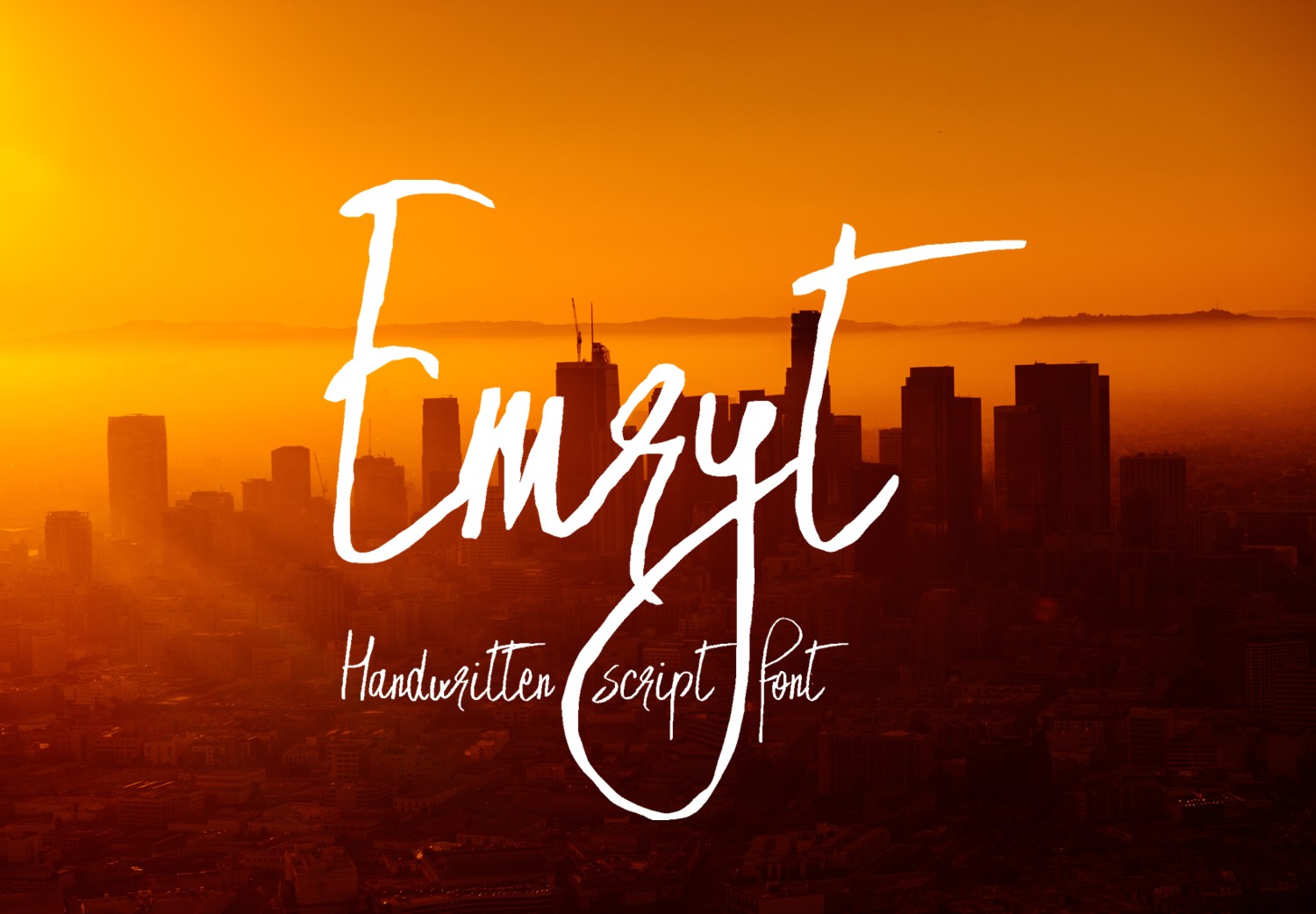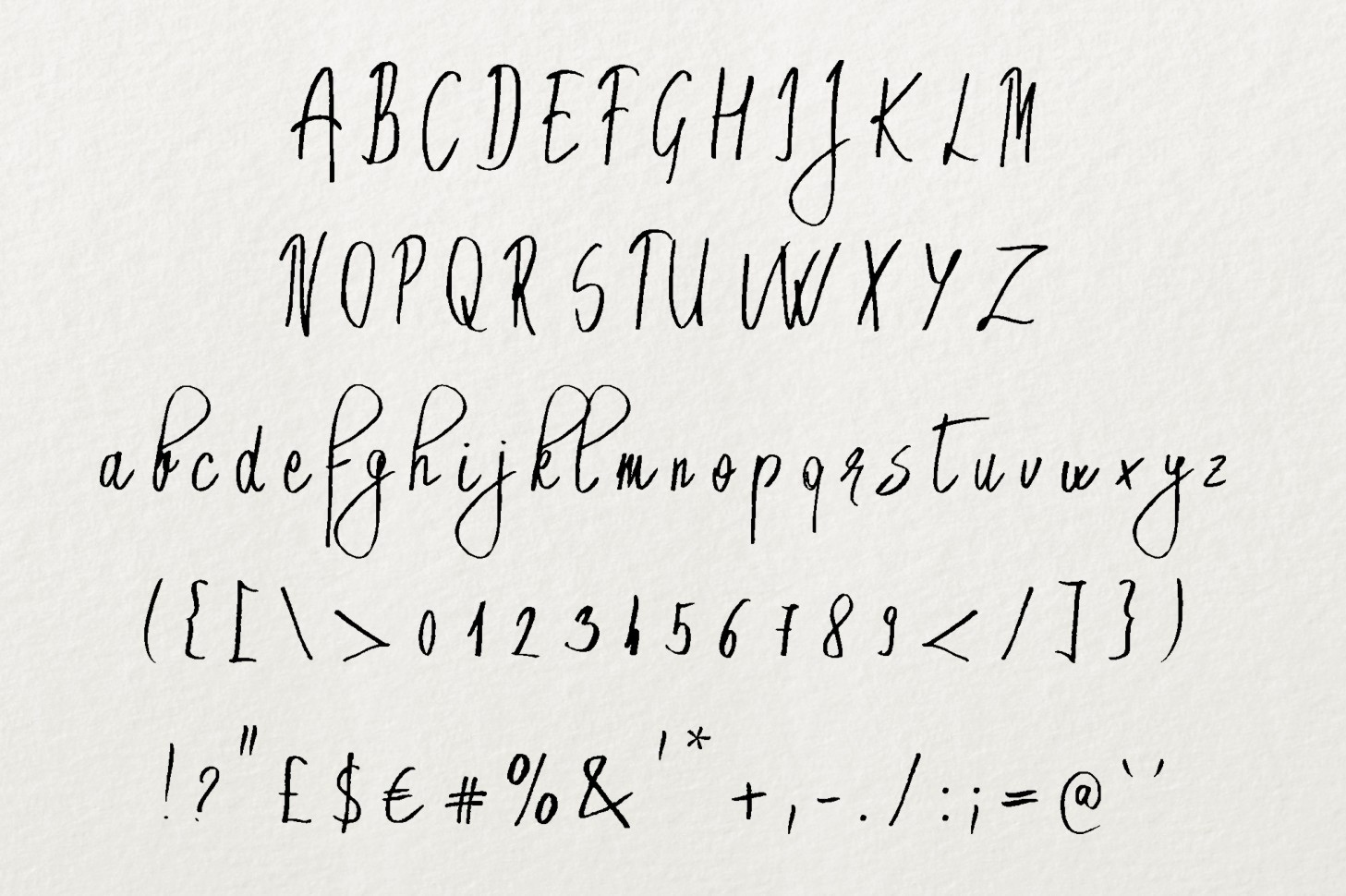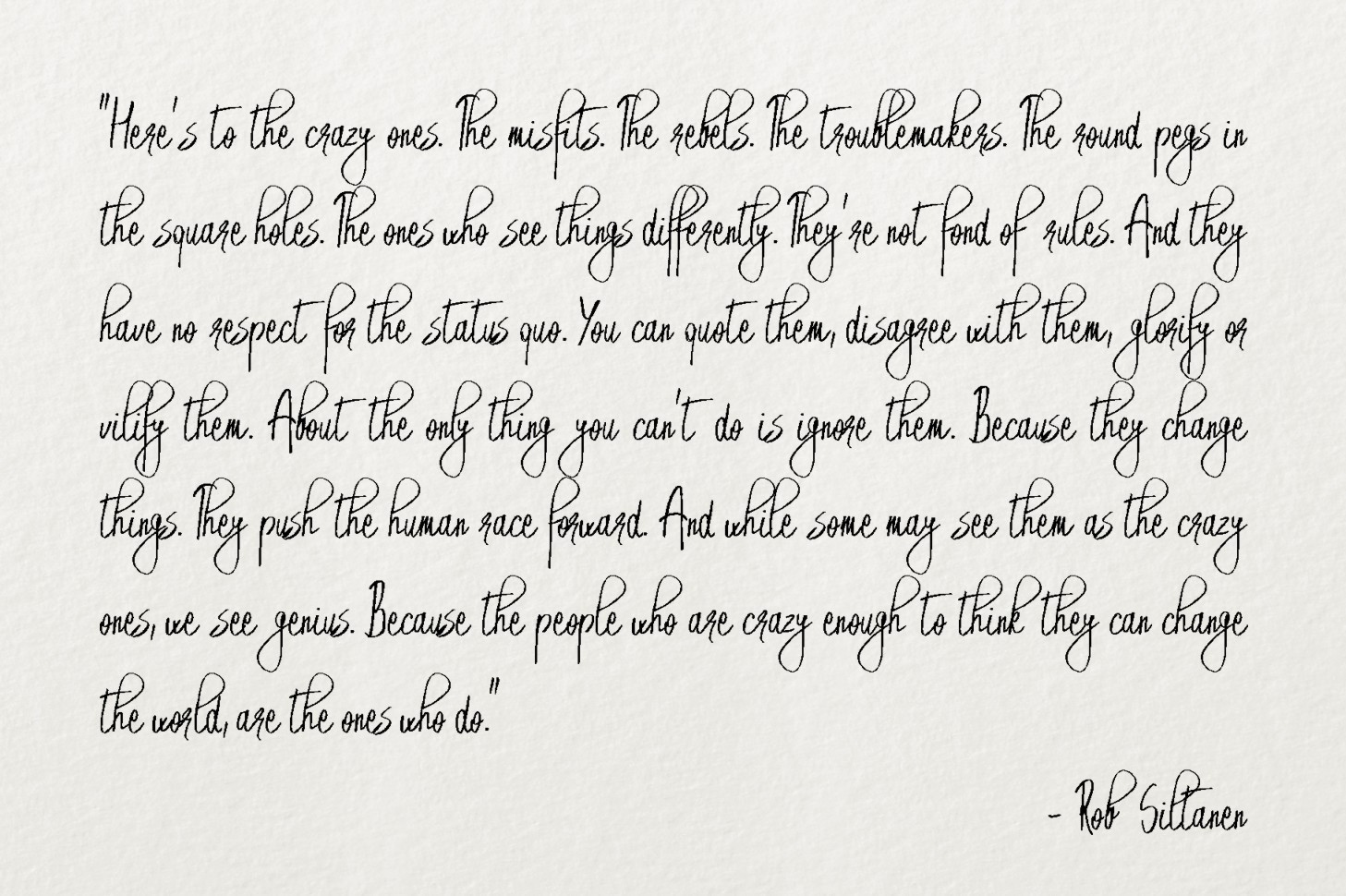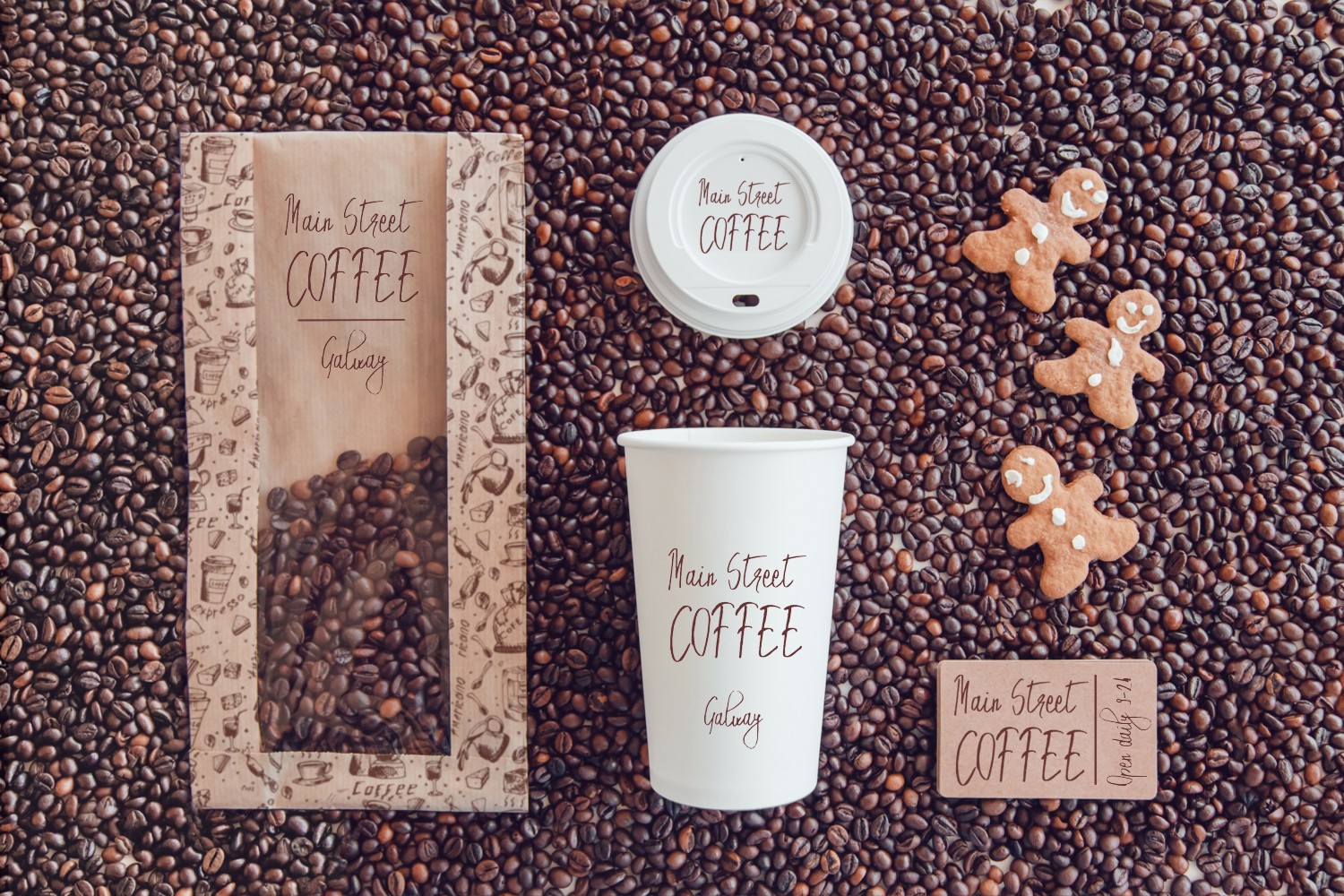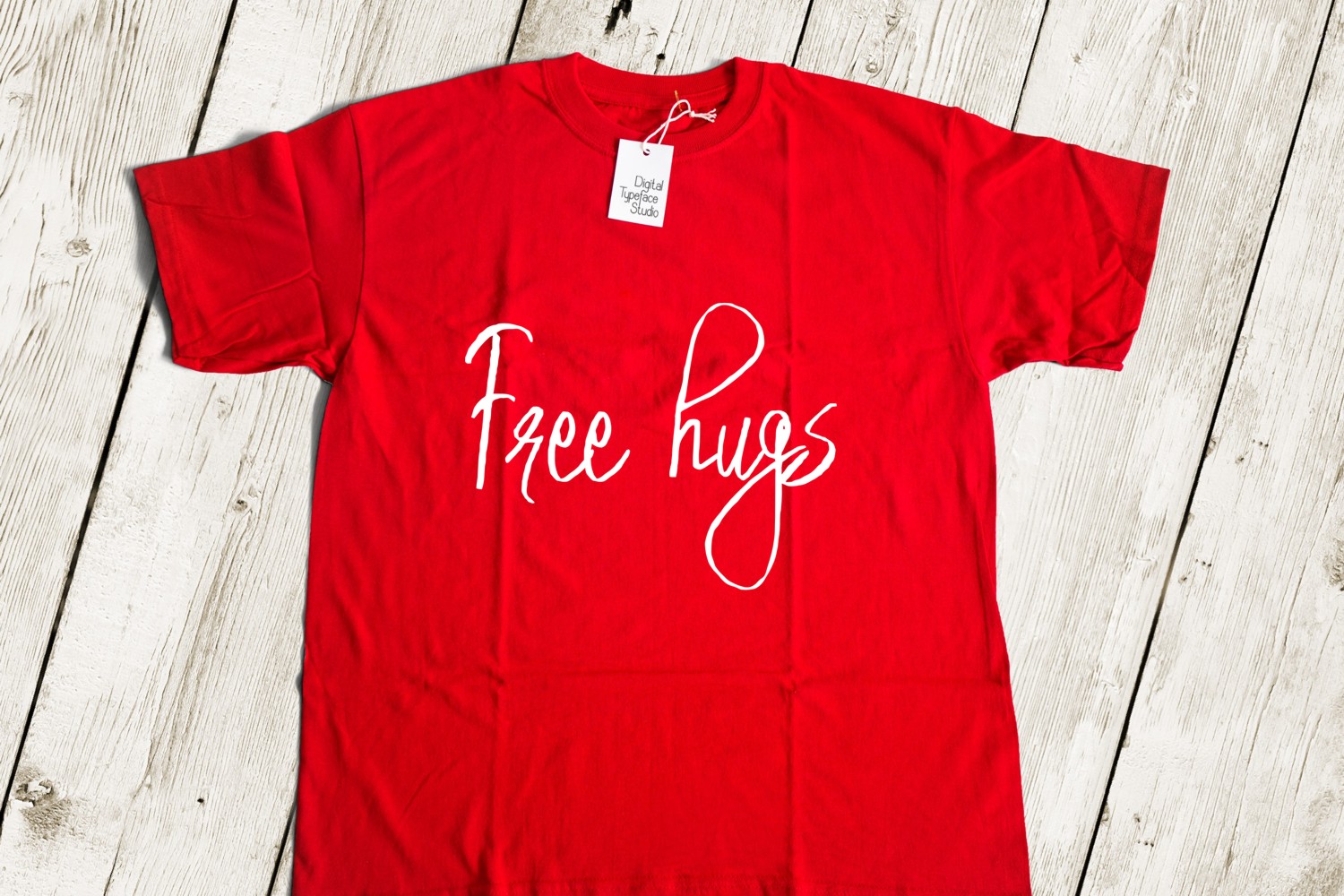
Emryt Font
About Emryt Font
Emryt is a handwritten script font which combines a rough and modern feel. Perfect for projects which require a touch of “rough edge” or texture to them.